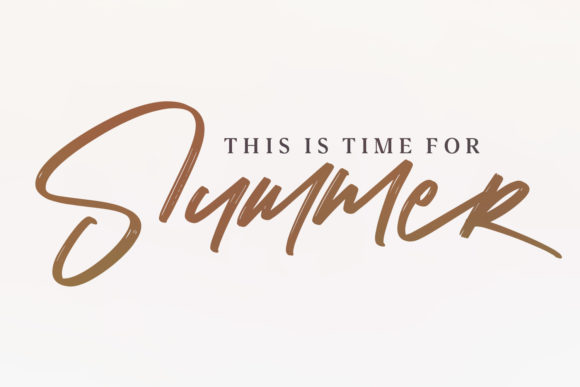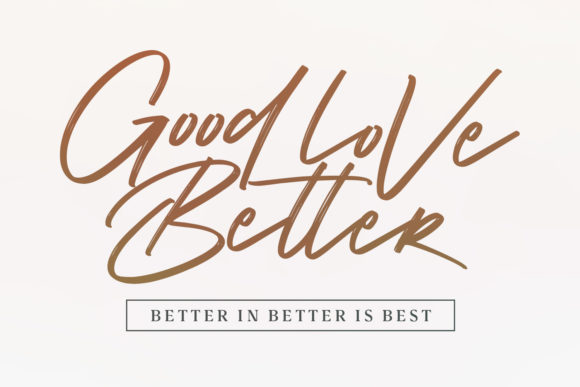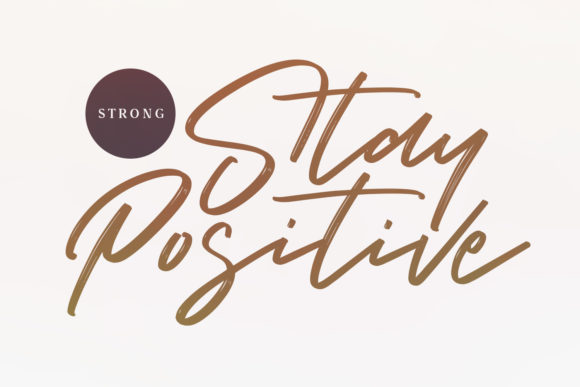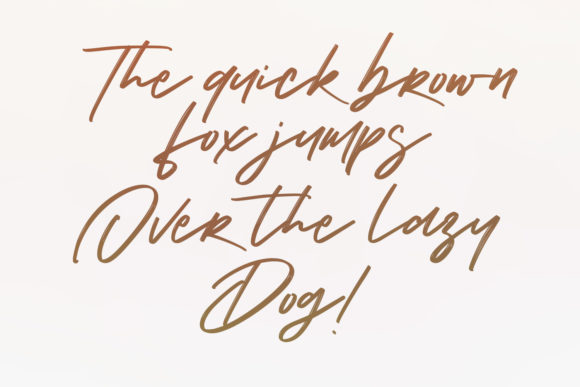
Katty Lynch Duo Font
About Katty Lynch Duo Font
Katty Lynch is a stunning font duo with a bold feel. It will elevate any design project with its sophisticated charm.